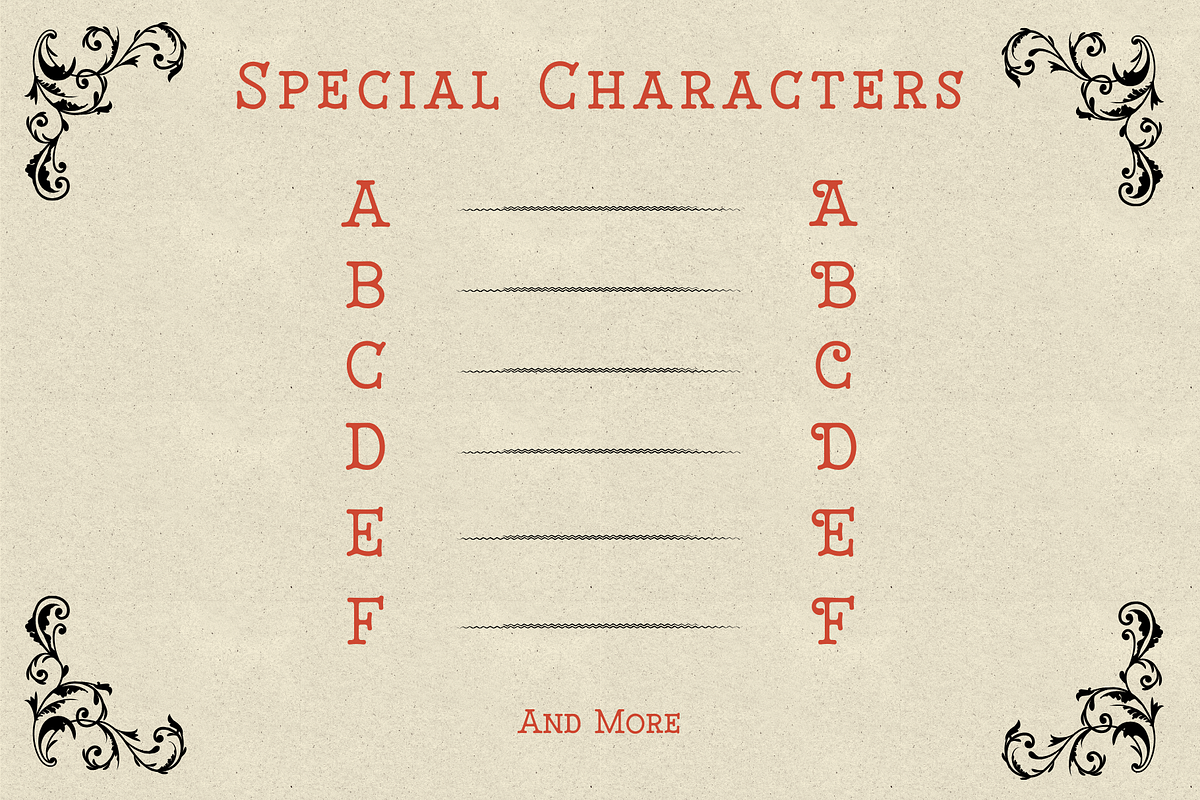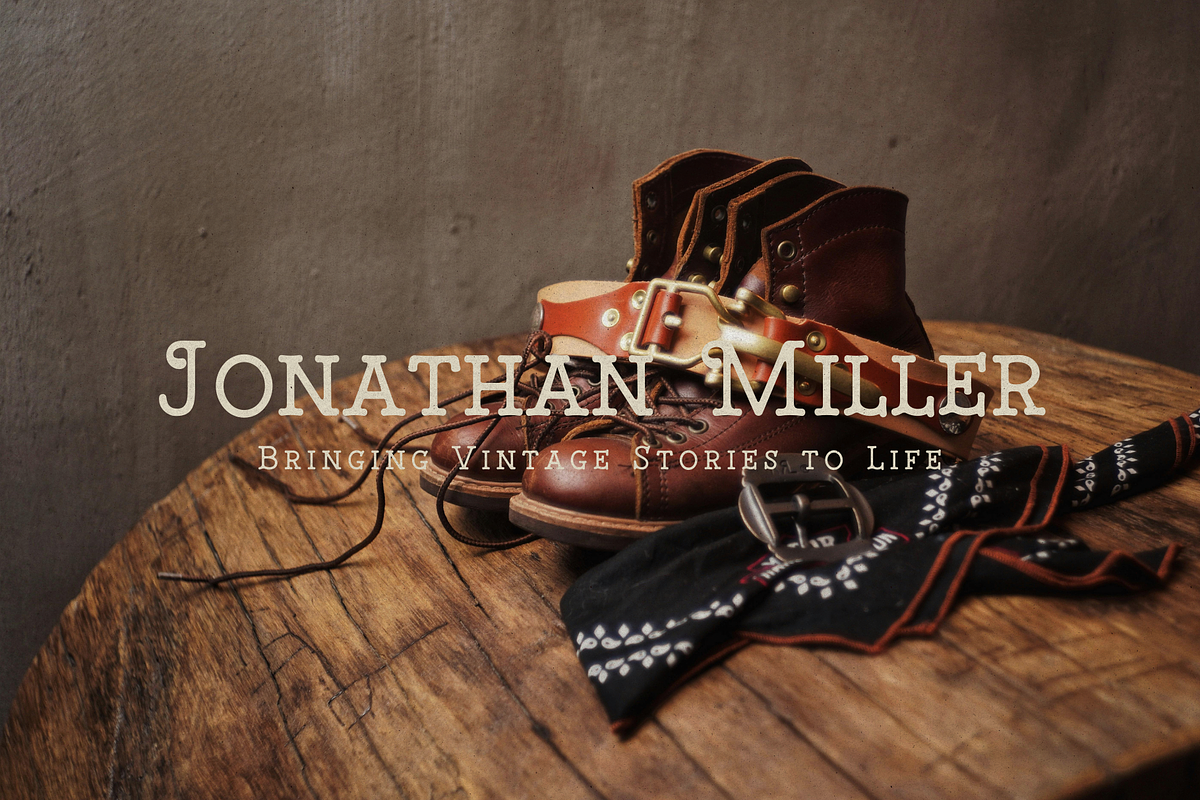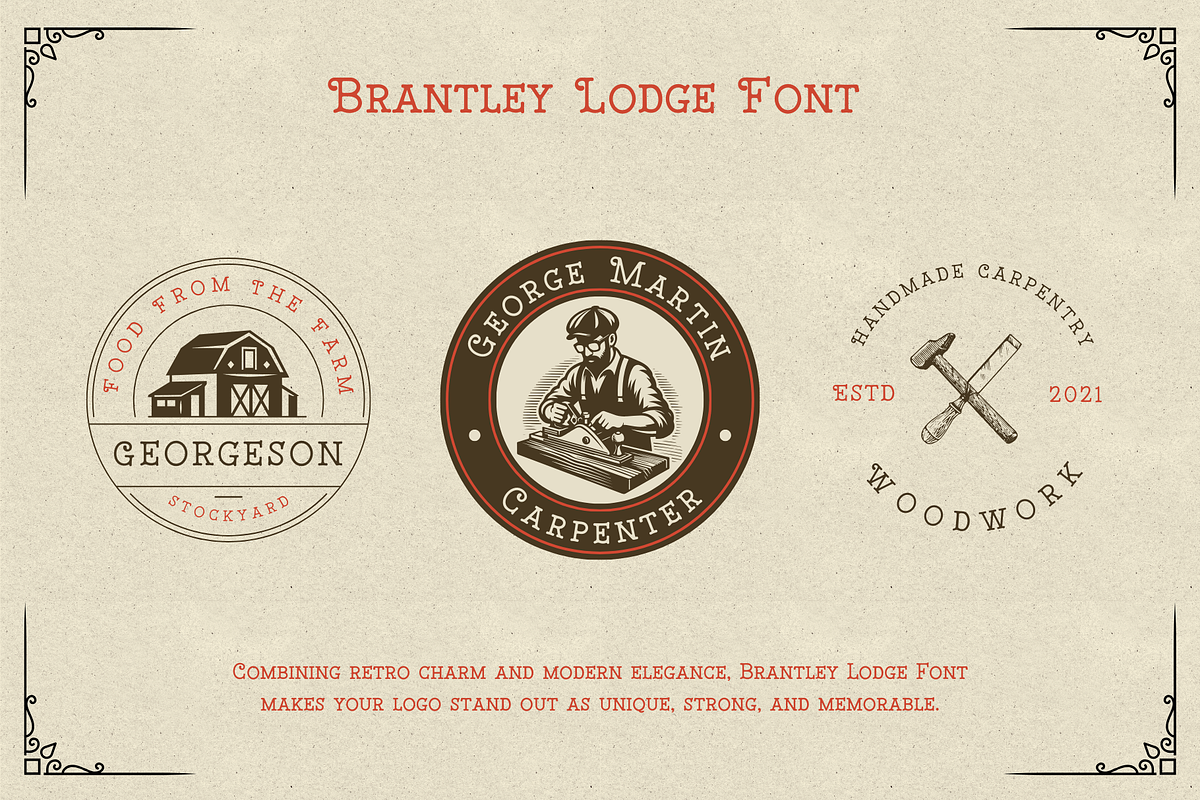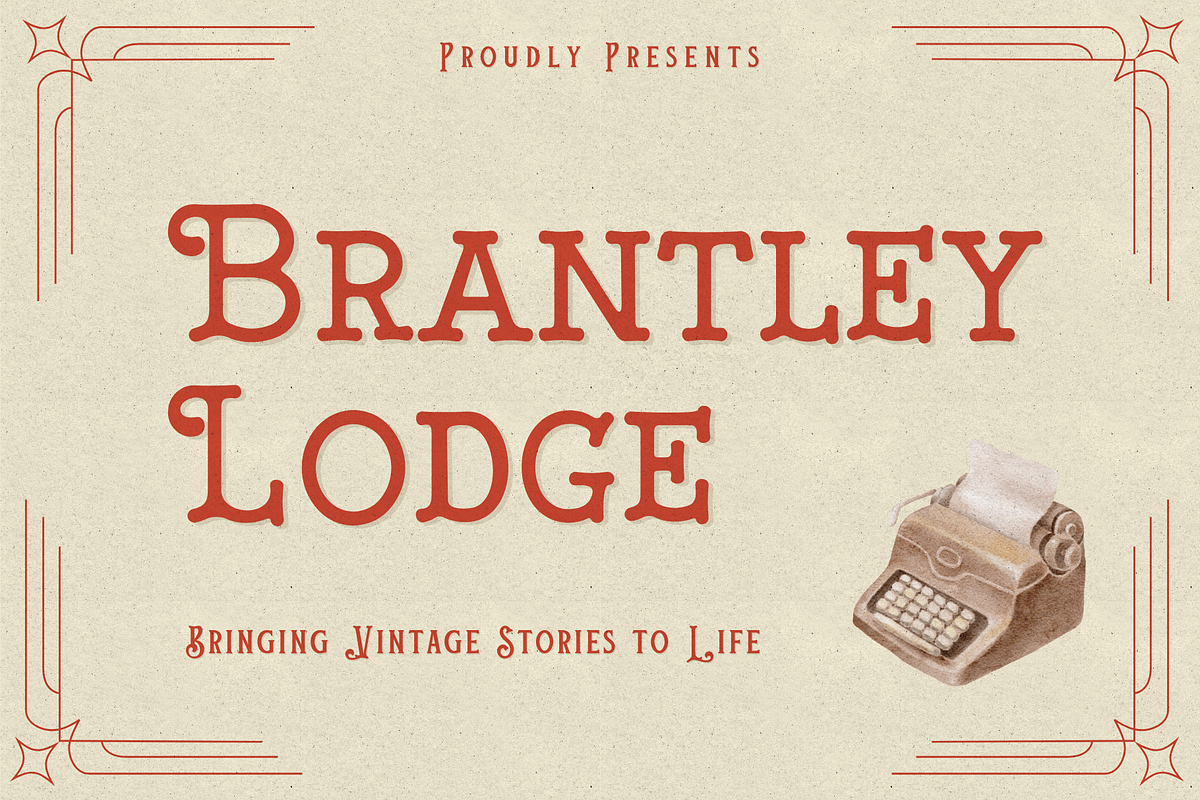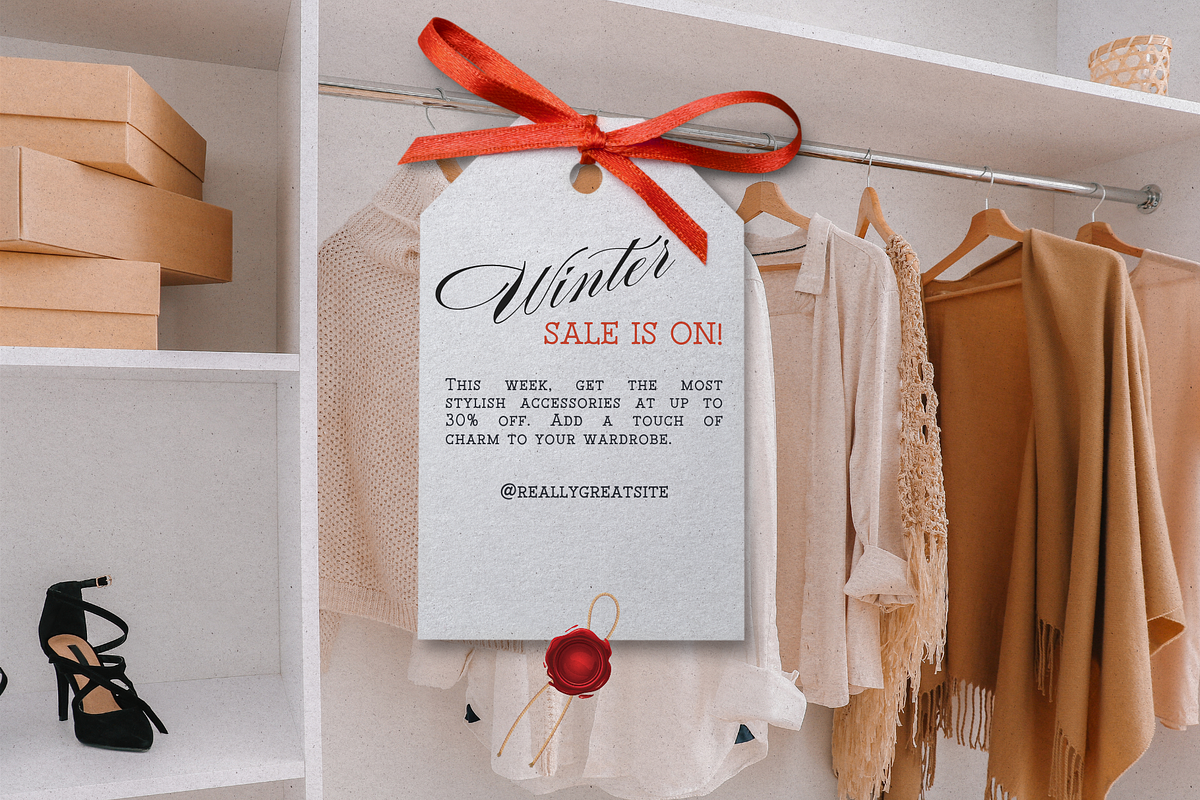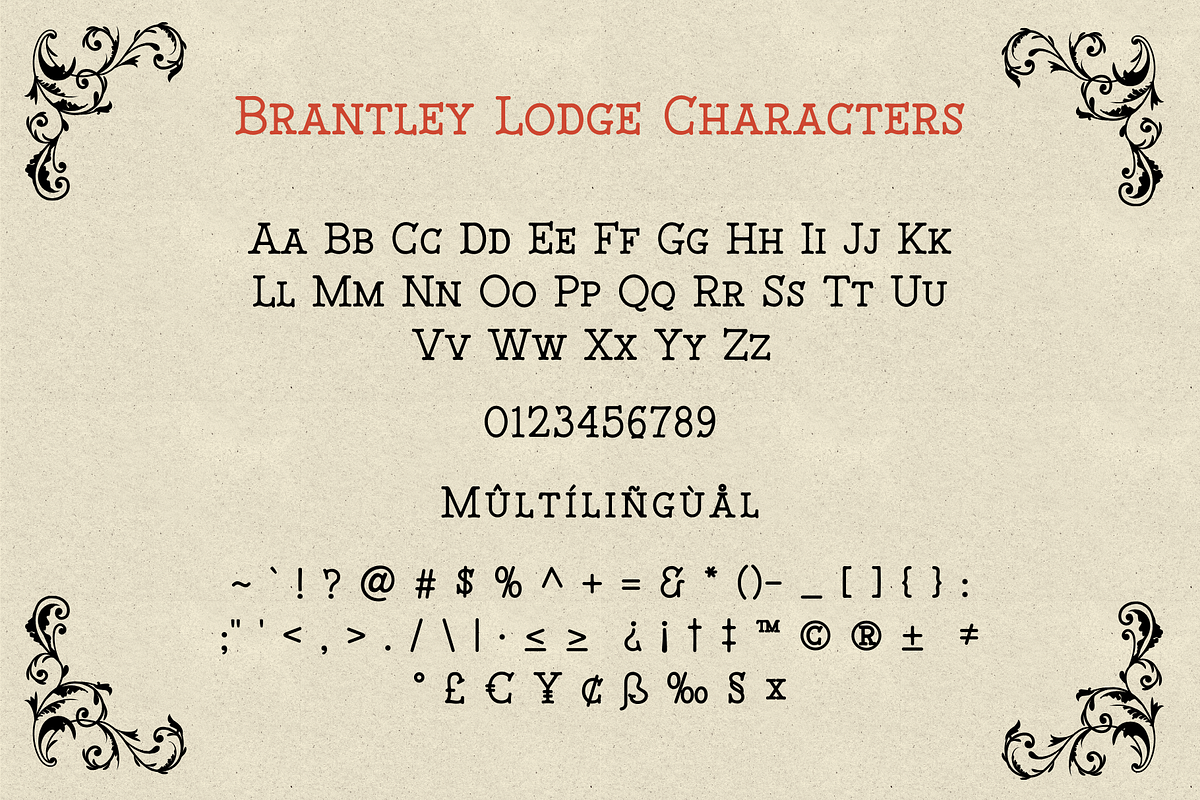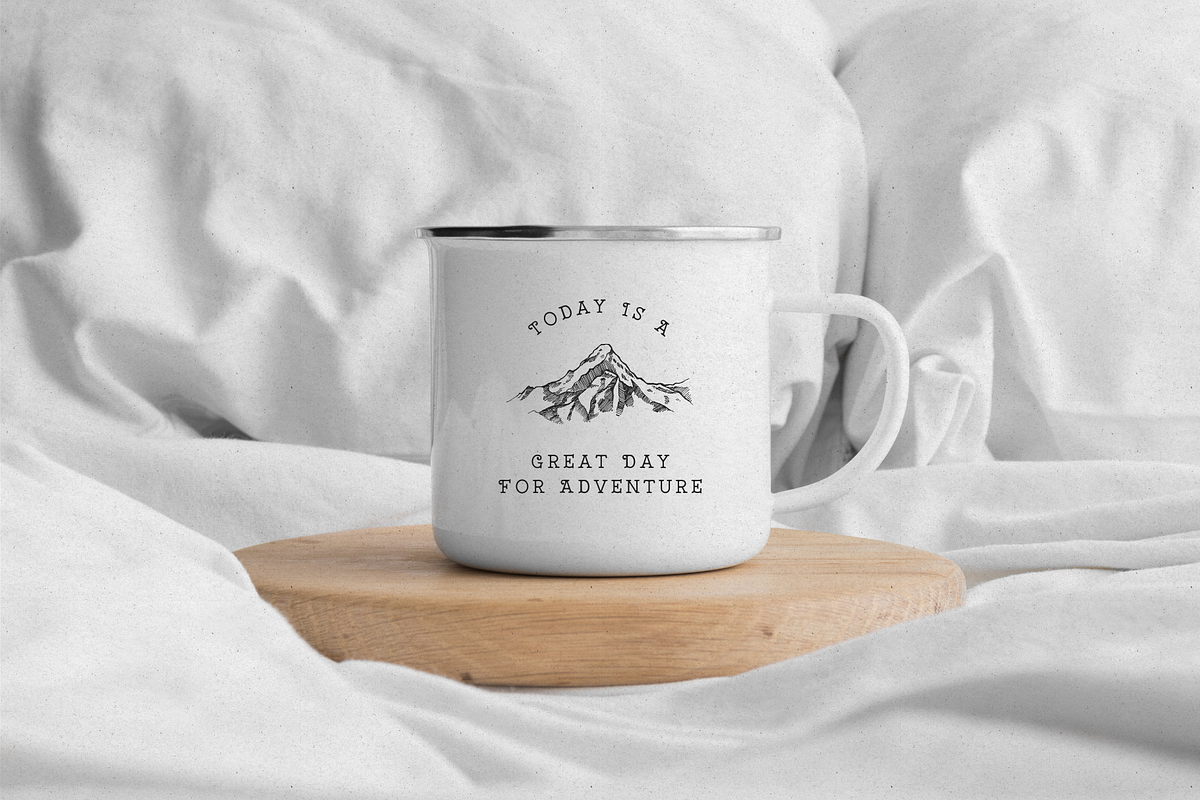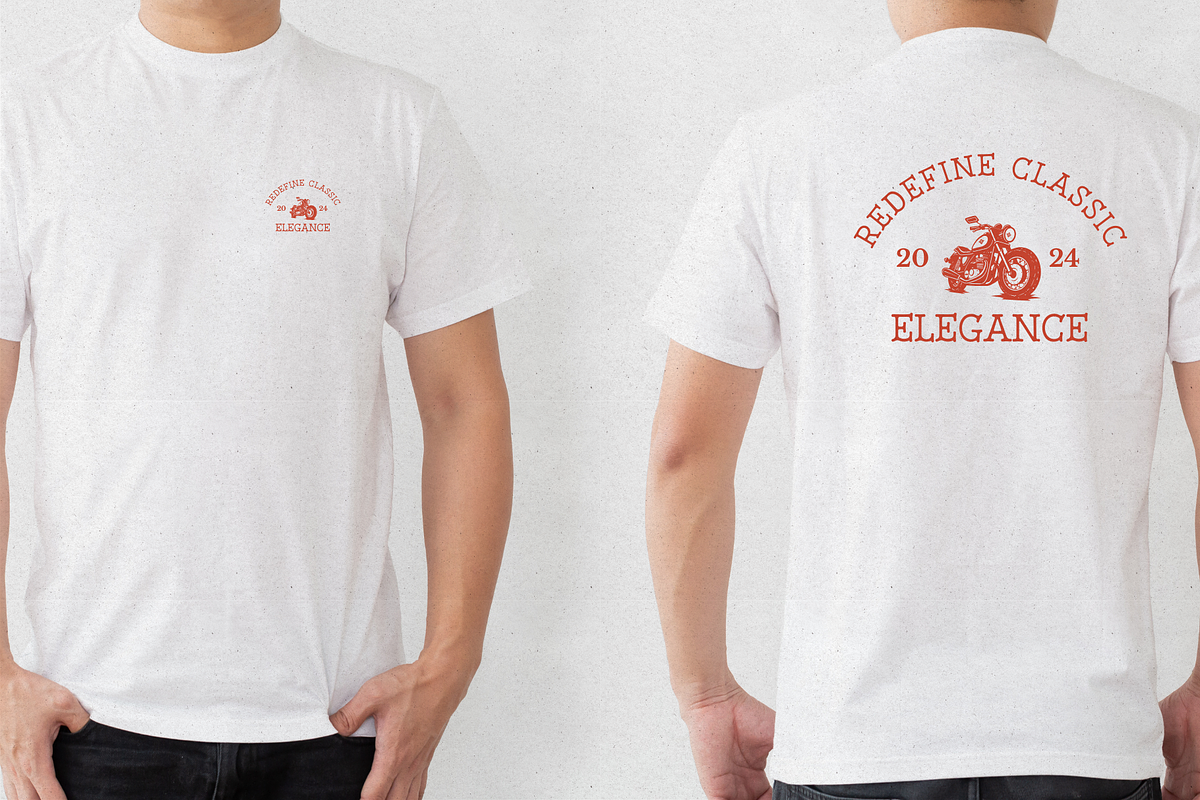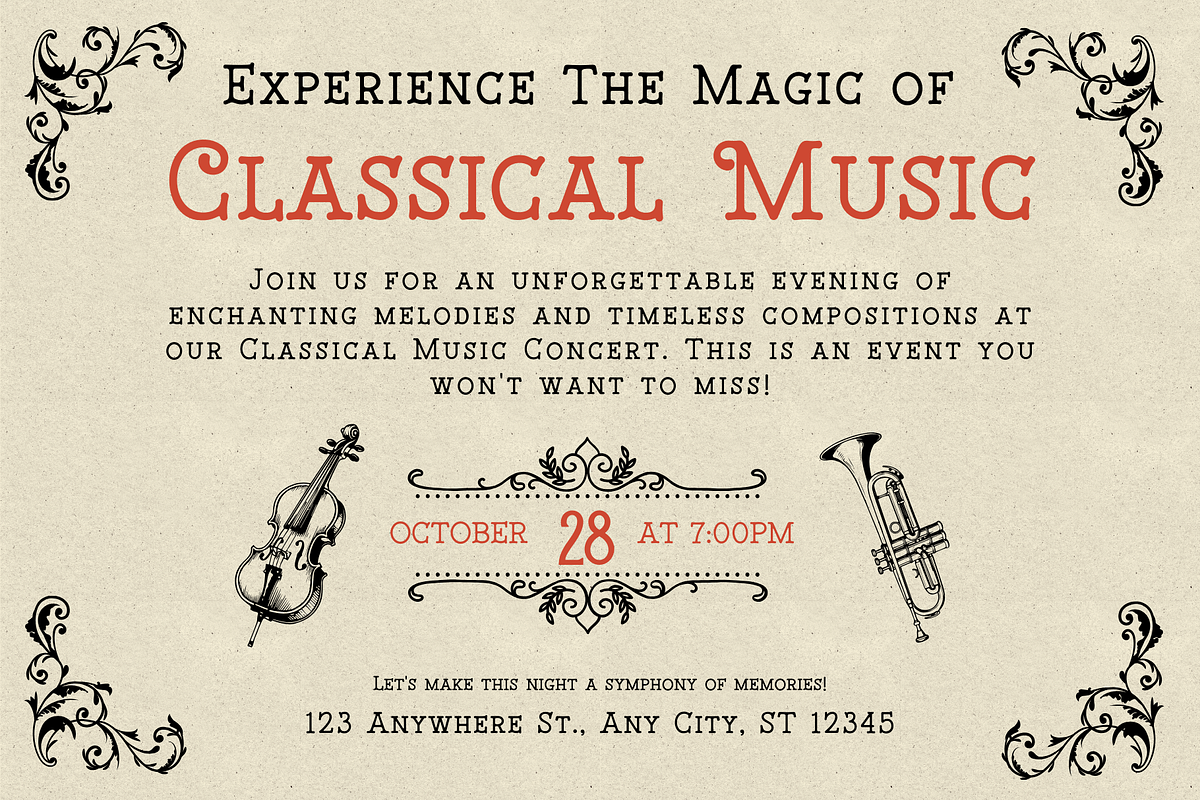
Brantley Lodge - Typewriter
Brantley Lodge – Elegant Vintage Typeface Brantley Lodge is an elegant typeface that combines classic charm with a modern, graceful touch. Designed with refined details and stylish letterforms, this font is perfect for adding a luxurious, professional, and sophisticated feel to any design project.
Ideal for logos, branding, invitations, product packaging, wedding designs, and editorial use, Brantley Lodge brings a strong visual identity that is both timeless and captivating. Its blend of vintage and modern elements makes it versatile for various design concepts — from elegant to minimalist.
✔️ Uppercase & Lowercase Letters
✔️ Numbers & Punctuation
✔️ Multilingual Support
✔️ Perfect for Logos, Branding, Packaging, Invitations, Posters
Brantley Lodge — timeless elegance in every letter.